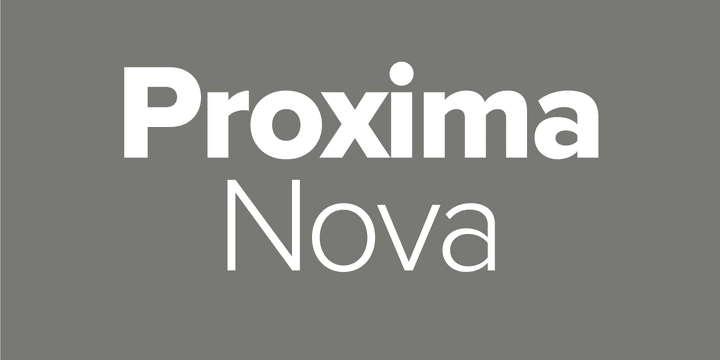
Proxima Nova – Fonts Like Montserrat
Proxima Nova Fonts Like Montserrat
The Proxima Nova family is a complete reworking of Proxima Sans (1994). The original six fonts (three weights with italics) have been expanded to 48 full-featured OpenType fonts. There are three widths: Proxima Nova, Proxima Nova Condensed, and Proxima Nova Extra Condensed. Each width consists of 16 fonts—eight weights with matching italics.
Stylistically, Proxima Nova straddles the gap between typefaces like Futura and Akzidenz Grotesk. The result is a hybrid combining humanistic proportions with a somewhat geometric appearance.
• Designer: Mark Simonson